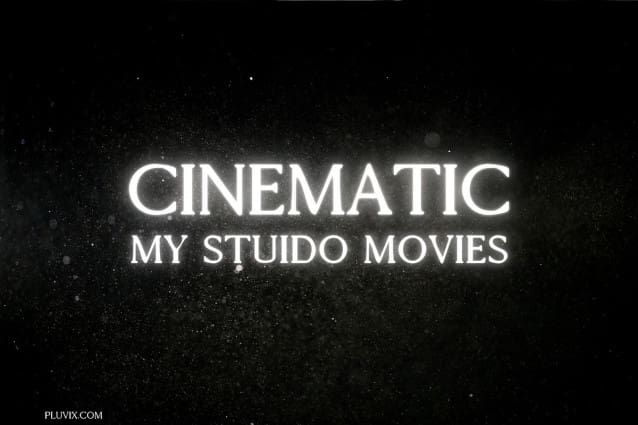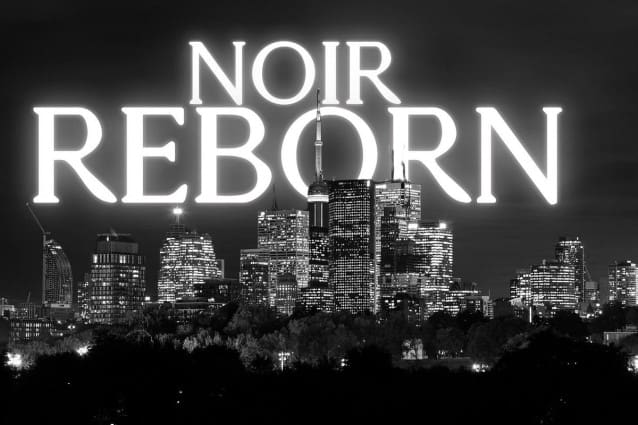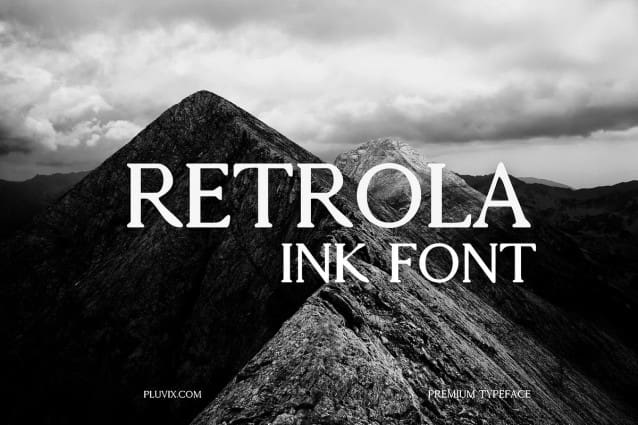
Retrola Ink Font
Retrola Ink Font is a refined and sophisticated serif typeface with a touch of vintage charm. Designed for elegance and readability, this font combines classic aesthetics with a modern edge. Whether you’re working on branding, editorial layouts, movie posters, or book covers, Retrola Ink Font provides a luxurious and bold presence.
With carefully crafted uppercase and lowercase letters, numbers, punctuation, and multilingual support, this font is perfect for various creative projects. Its ink-inspired details make it stand out in sophisticated typography, giving your designs an exquisite look.